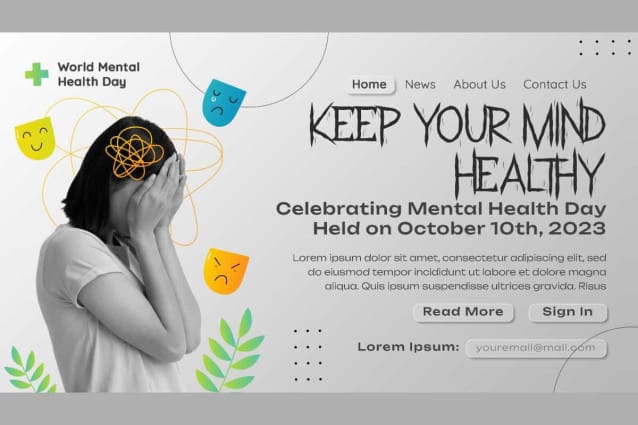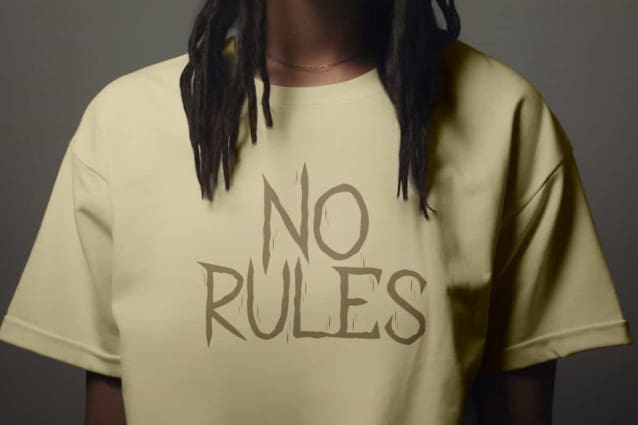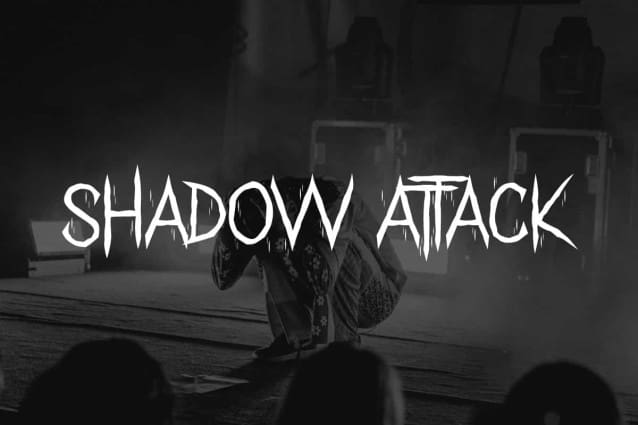
Shadow Attack Font
Shadow Attack Font is a horror display font with sharp shapes. This font gives a bold and mysterious impression. Ideal for automotive, clothing brand, coffee shop, crafts, event or festival, game, graphic design, mental health campaign, outdoor activities, racing, sports, and more.
Shadow Attack Font includes full set of ALL CAPS for Uppercase and Lowercase Basic Characters, Numbers, Punctuation and Symbols, and Ligature. This font is designed as a perfect and dynamic font for its users. Perfect for billboard, branding, brochure, card, cover paper, custom design, header, label, monogram, poster, screen printing, sticker, website, etc.